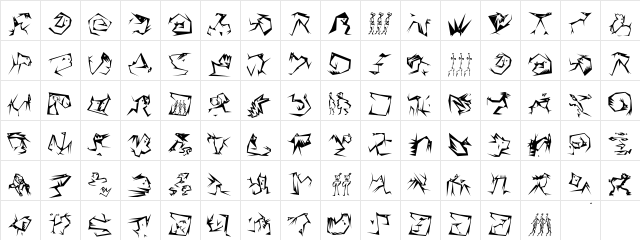
XamStern Regular
Design Context for XamStern Typeface
XamStern is a composed and adaptable typeface that performs quietly and consistently across a wide range of design contexts.